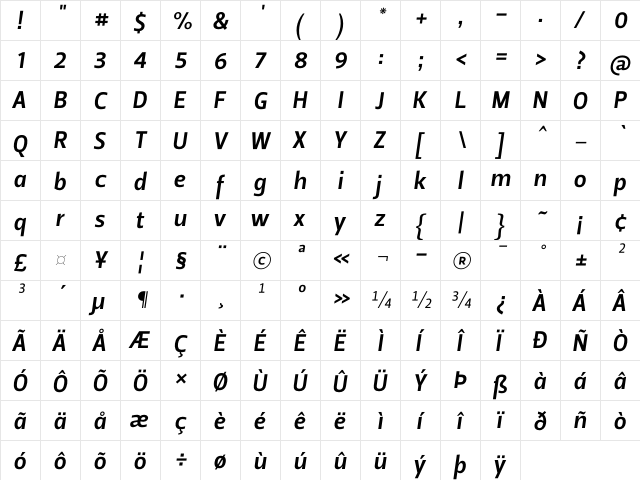
Leitura Sans Italic 3
| Foundry | Dino dos Santos _DSType |
| Designer | Dino dos Santos |
Design Context for Leitura Sans Typeface
Leitura Sans is a composed and adaptable typeface that performs quietly and consistently across a wide range of design contexts. Its italic angle brings a sense of urgency and motion to the letterforms.
Pro Tip: Try Leitura Sans for annotation and caption copy alongside an upright companion — the contrast in angle creates a dynamic but ordered typographic system.